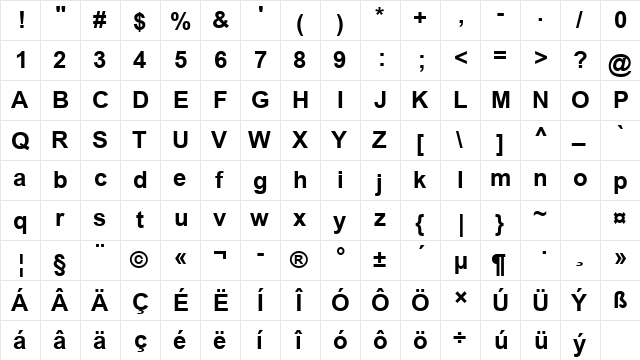
Arial CE Bold
Design Context for Arial CE Typeface
Arial CE takes a measured approach to typography — its balanced proportions and neutral character make it a reliable workhorse for both digital and print work. The heavy weight commands attention and anchors typographic hierarchies.